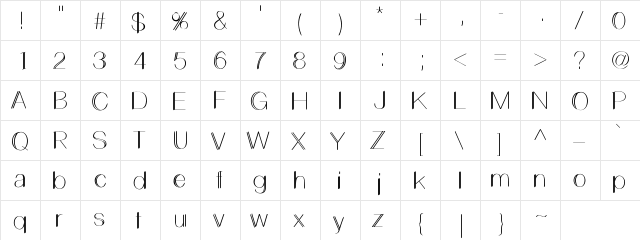
LemonCookieSans Medium
Design Context for LemonCookieSans Typeface
LemonCookieSans offers clean, dependable letterforms without strong stylistic allegiance, making it a practical choice for designers who need flexibility.